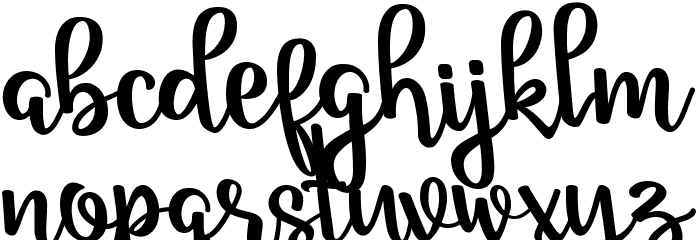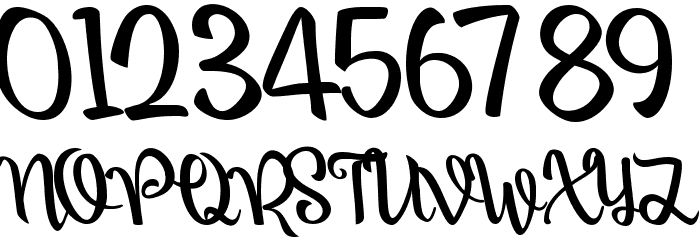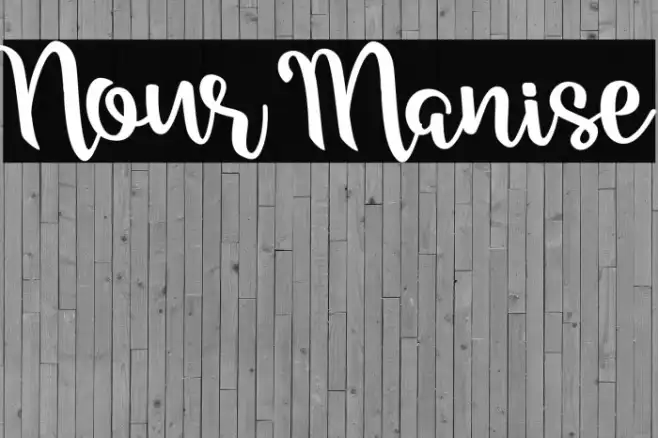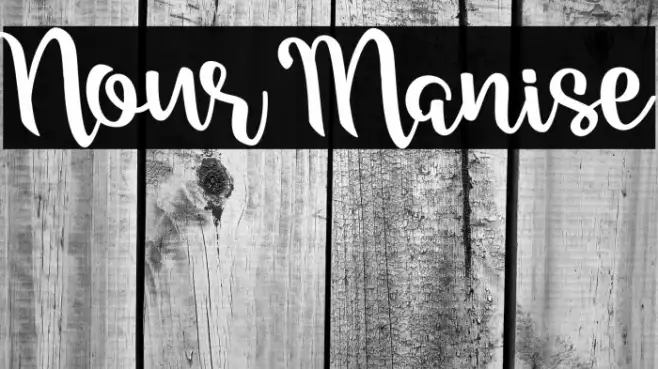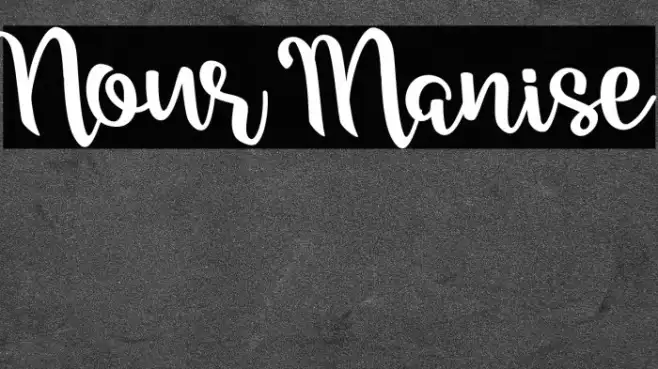
Nour Manise Font
This font is a playful and expressive script style that features a flowing, handwritten appearance. The characters are interconnected with smooth, curvy lines, giving it a lively and dynamic feel. The uppercase letters are bold and prominent, while the lowercase letters maintain a consistent flow, enhancing readability. The numbers are equally stylized, maintaining the overall whimsical aesthetic. Special characters are creatively integrated, adding to the font's versatility. This font is perfect for projects that require a personal touch, such as invitations, greeting cards, or branding materials.
A playful, expressive script font with a lively, handwritten style.
- Font: Nour Manise
- Proposed Projects: Ideal for invitations, greeting cards, branding, and creative projects.
- Category: Script
- Use Case: Logos, Headlines, Invitations